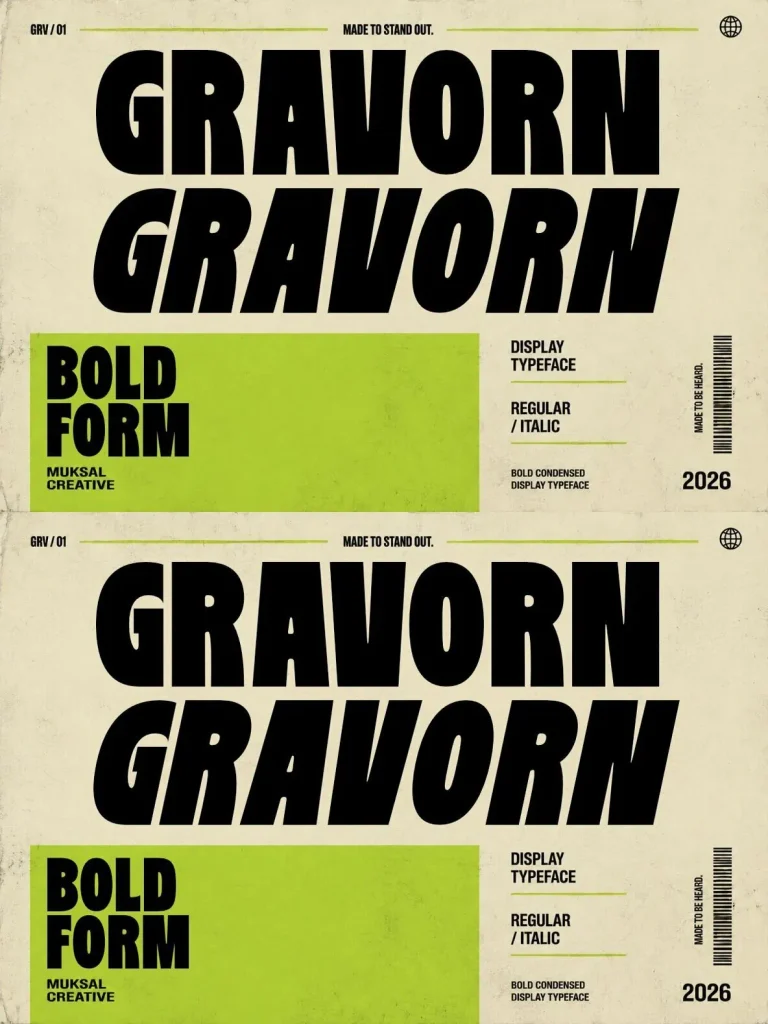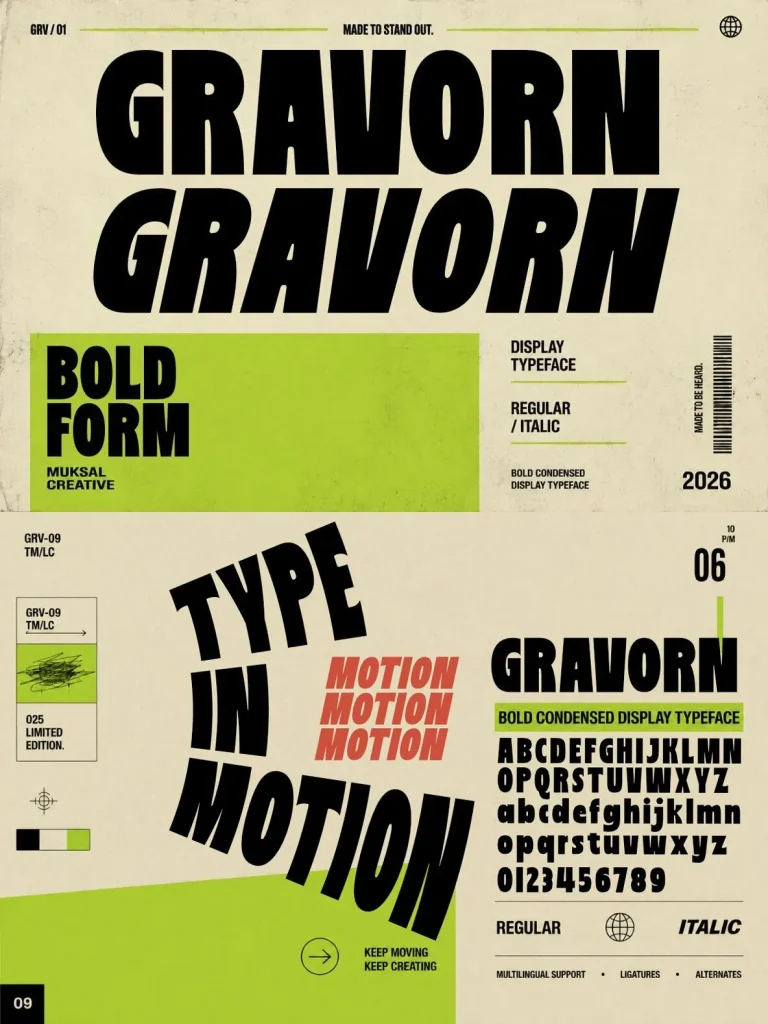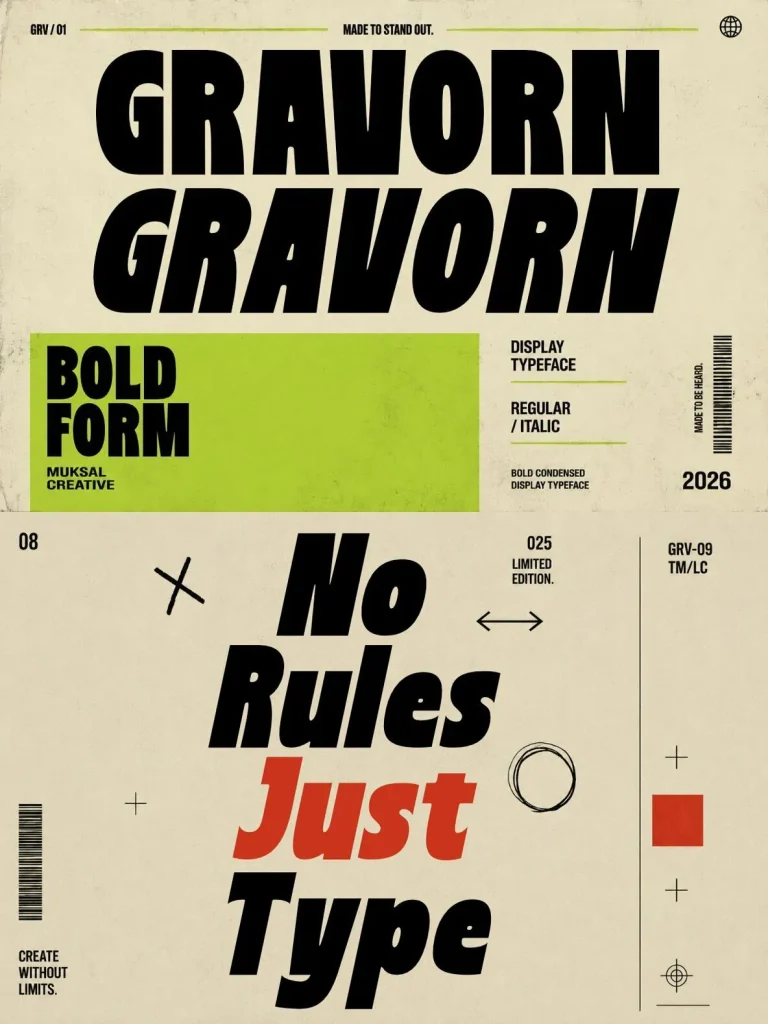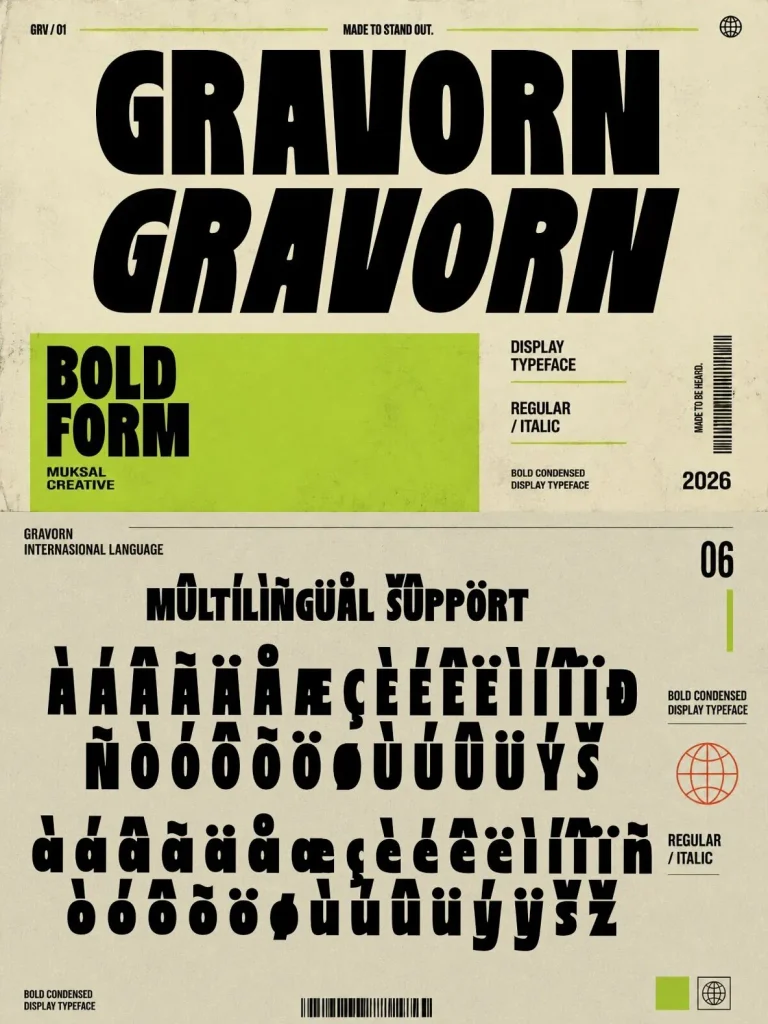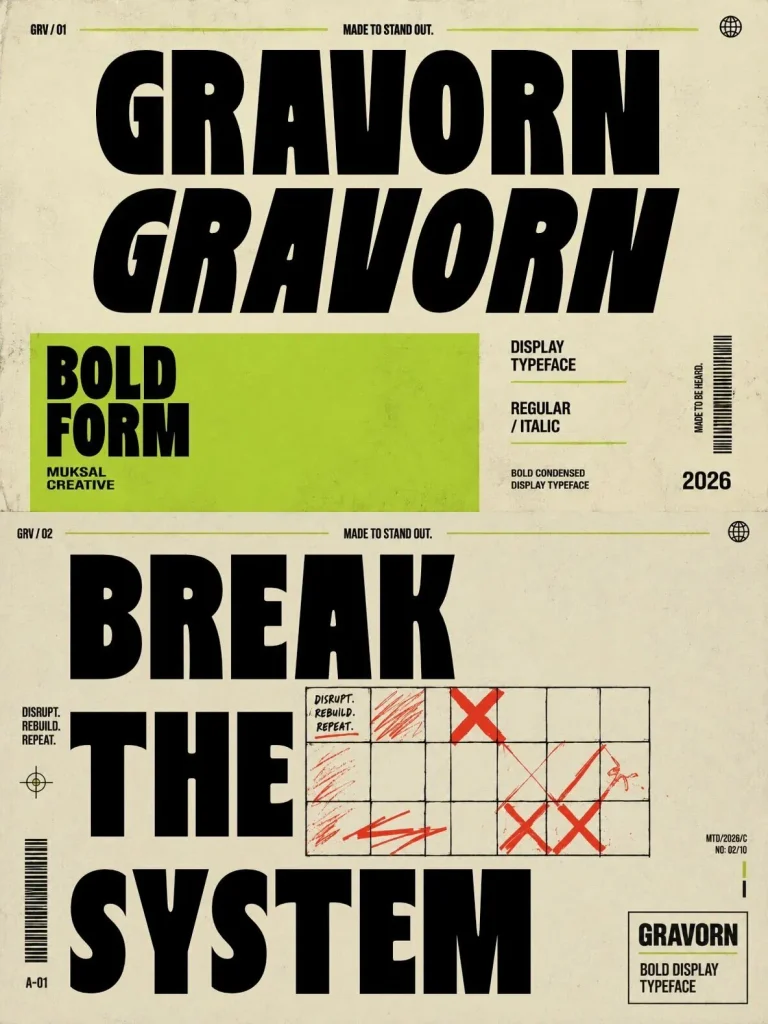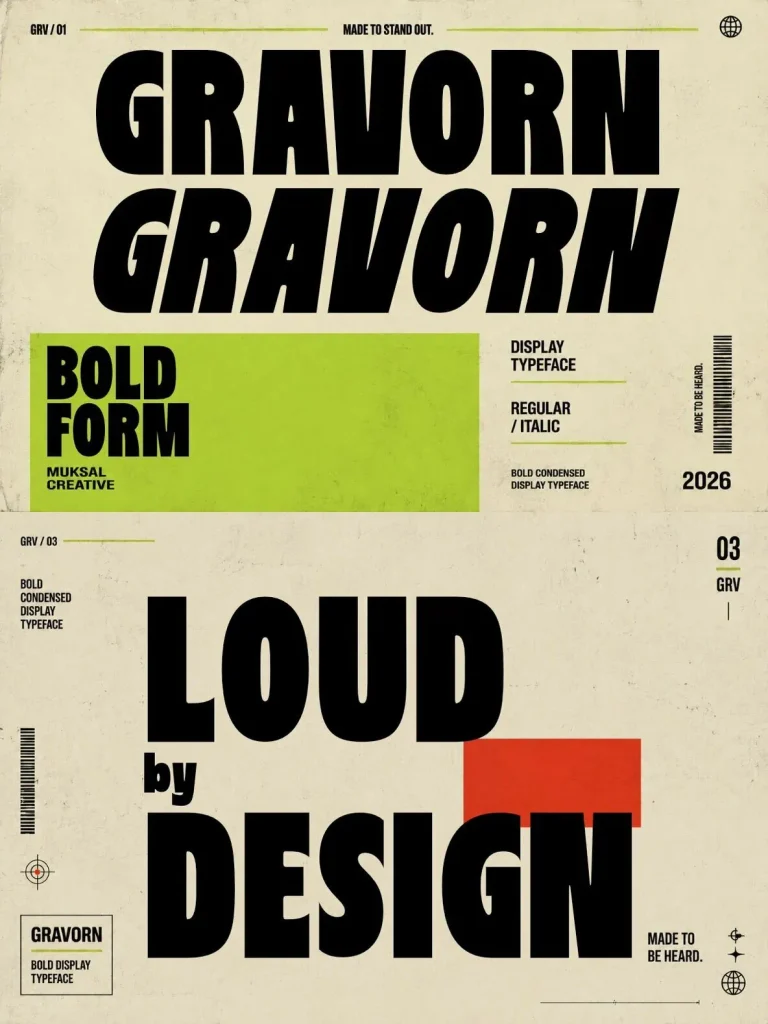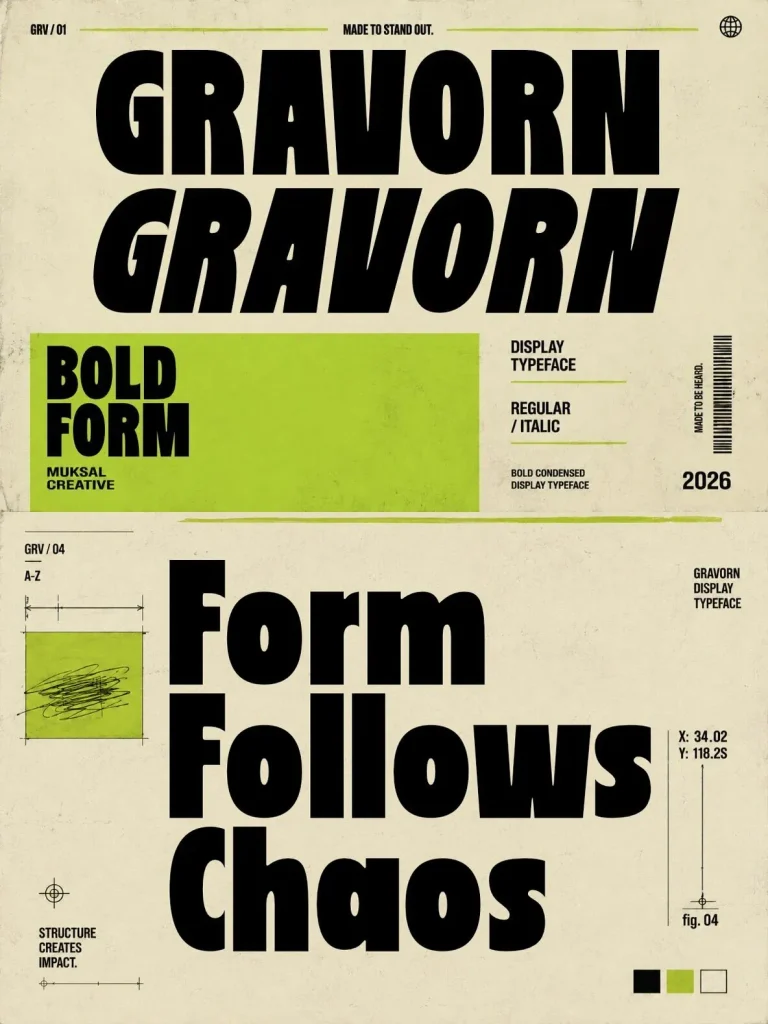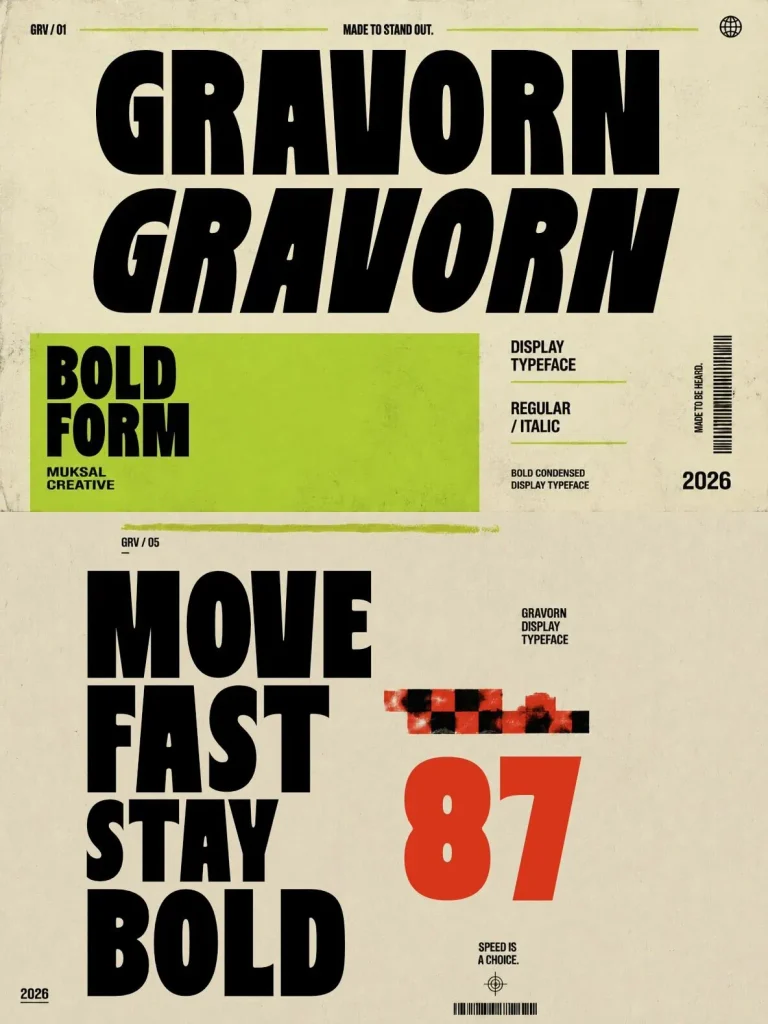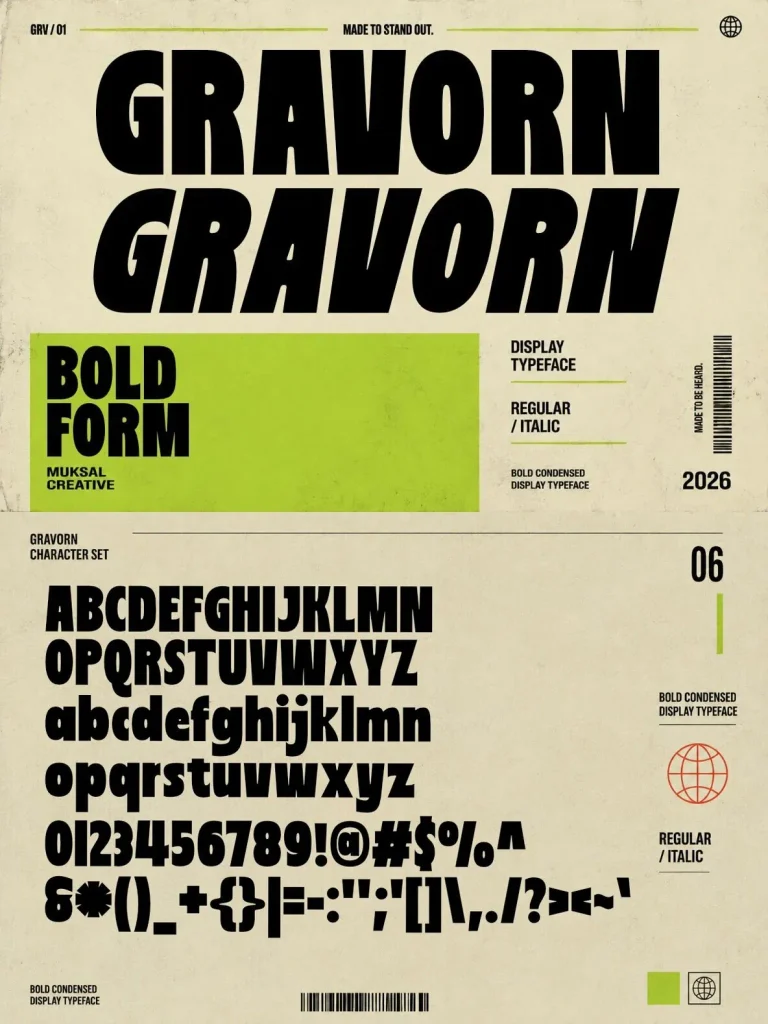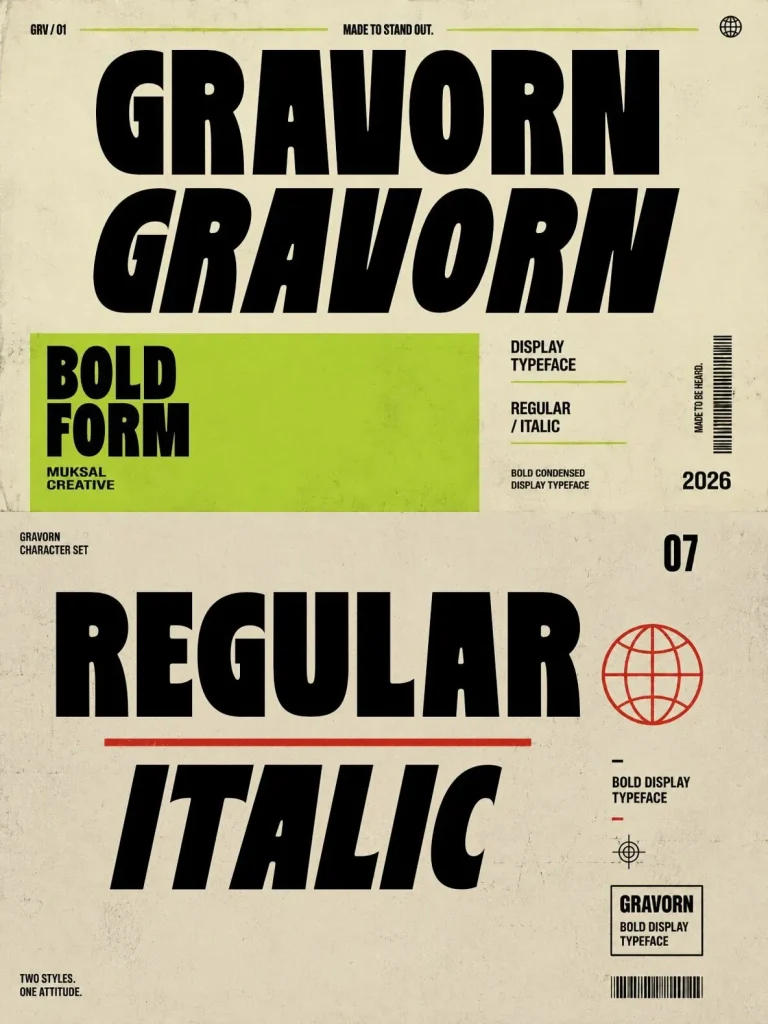
Gravorn Font
Gravorn — Impact in Condensed Form
Gravorn is a bold condensed display typeface made for strong, confident, high-impact typography. Its tall proportions, heavy letterforms, and distinctive character give every word a powerful visual presence while keeping a compact structure. With a contemporary graphic design sensibility and a touch of retro industrial attitude, Gravorn brings force and focus to type-led compositions.
Use Gravorn for posters, headlines, editorial layouts, branding, packaging, sports graphics, apparel, album covers, advertising, and experimental typography. The family comes in
Regular and Italic styles
, so you can pair solid, commanding letterforms with a more dynamic sense of movement. Its condensed proportions suit oversized headlines and tight layouts where visual impact matters. At massive scale, or alongside photography and graphic elements, Gravorn makes typography impossible to ignore.
Features
Regular & Italic
Bold Condensed Display Style
Uppercase & Lowercase
Numerals & Punctuation
Multilingual Support
Ligatures
Alternates
Perfect for Headlines & Large Display Typography